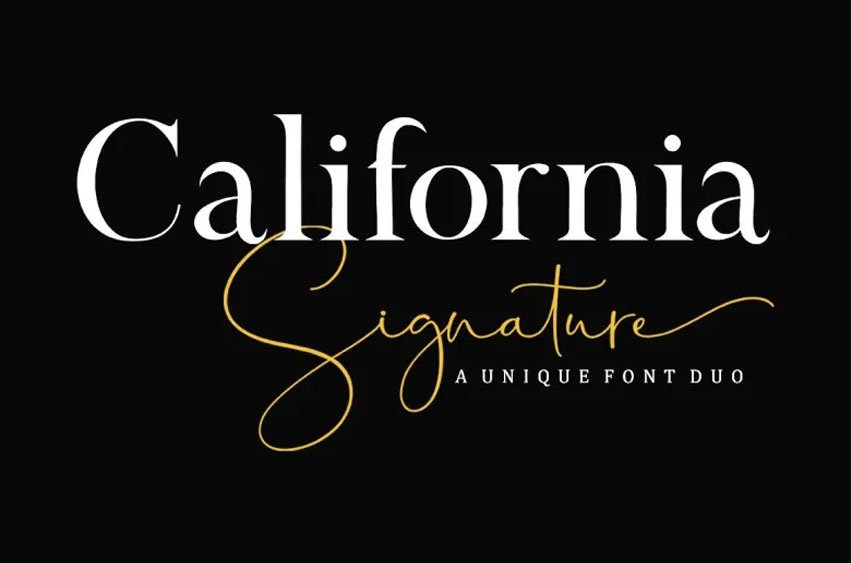
California Signature Font
California Signature Font is the ideal combination of Luxury and Uniqueness. Comprised of seven contemporary fonts (Uppercase Serifs and Lowercase Serifs as well as stylized script).
California Signature offers feminine curves in its serifs that create an eye-catching feminine aesthetic, perfect for logos as well as social media posts, invitations, or any number of tasks requiring serif fonts. Plus it comes with multilingual support!